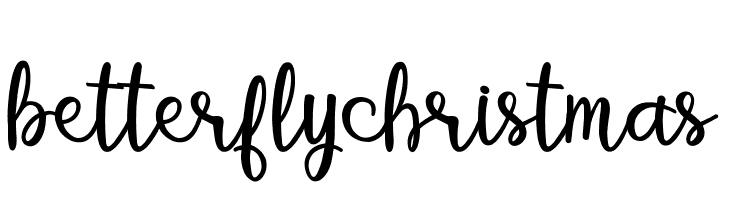
A textured, hand-drawn font with a scratch-like appearance.
A bold, italic, and condensed font with a dynamic and modern style.
A playful, handwritten-style font perfect for festive themes.
A bold, modern font with characters formed by interconnected dots, offering a playful and digital aesthetic.
A bold, playful font with rounded, hand-drawn characters.
A playful, handwritten font with a quirky style.
A futuristic and geometric font with bold, abstract characters.
设计师偏爱 BeaverScratches, Transmetals Condensed Italic, betterfly christmas, PHENOMENON and Insecute Regular,因为其造型干净、适用范围广—— 从品牌识别到落地页、海报都能胜任。